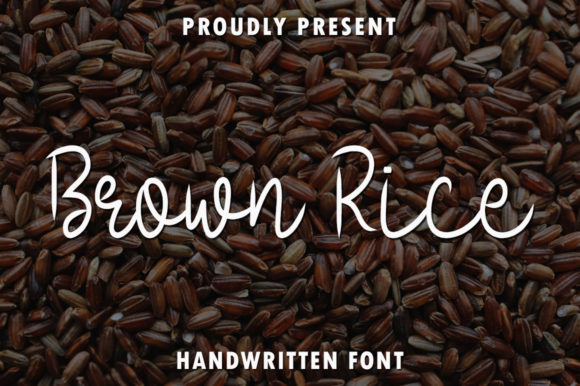
The Brown Rice Font: A Designer’s New Best Friend
I’ll never forget the time I was working on a branding project for a new coffee shop, and I just couldn’t find the right font to capture their warm and cozy vibe. The client wanted something that felt approachable, yet sophisticated. That’s when I stumbled upon the Brown Rice font, and it instantly became my go-to. In this article, I’ll share my experience with this beautiful font, its features, and how to make the most of it in your designs.
An Honest Review of Brown Rice Font
• Unique yet legible: Brown Rice has a distinctive handwritten feel that’s easy to read, even at small sizes.
• Versatile: This font is perfect for a wide range of projects, from branding and packaging to invitations and social media graphics.
• 💕 Aesthetically pleasing: The rounded letters and gentle curves make it a joy to look at and work with.
While Brown Rice is an excellent font, there are a few things to keep in mind:
• ⚠️ Limited use of uppercase: While the uppercase letters are available, they might not be as stylistically consistent as the lowercase letters.
• 🤔 Some letters may require manual kerning: Depending on your design and the specific words you’re using, you might need to adjust the kerning for optimal results.
The Story Behind Brown Rice Font
While the true origins of Brown Rice might be shrouded in mystery, it’s easy to imagine a designer sitting in a cozy café, sipping on a warm cup of coffee, and sketching out letters on a napkin. The result is a font that’s both comforting and stylish, perfect for projects that need a personal touch.
Font Name Brown Rice Font
Author rangkaiaksara
Is Brown Rice suitable for body text? While Brown Rice is legible, it’s best used for headings, titles, and short paragraphs due to its unique style.
Does Brown Rice support OpenType features? Yes, Brown Rice includes OpenType features like ligatures and stylistic alternates, allowing for more creative typography.
Is Brown Rice available in multiple weights? Brown Rice comes in a single weight, but its versatility and range of OpenType features make it suitable for various design needs.